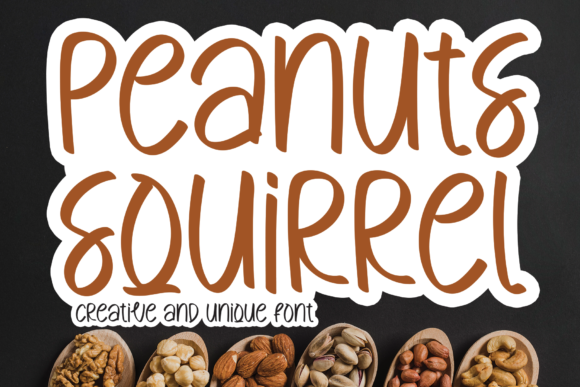
Step into the realm of enchantment, where elegance and charm dance hand in hand to create a typographic masterpiece – Peanuts Squirrel Font. This exquisite script font is meticulously designed to awaken the senses and stir emotions with its graceful curves and captivating presence.
Peanuts Squirrel Font belongs to the esteemed family of script fonts, renowned for their ability to evoke a sense of intimacy and personal touch. It is the embodiment of artistic flair, thoughtfully created to elevate your creative projects to new heights.
Immerse yourself in the beauty of Peanuts Squirrel Font and embark on a journey of artistic exploration. Let your imagination soar as you craft extraordinary wall displays that speak volumes, transforming blank walls into canvases of artistry.
Picture this: your wedding invitations adorned with the enchanting strokes of Peanuts Squirrel Font. Each letter, a delicate dance of beauty, invites your guests into a world of elegance and romance. Your social media posts will come alive with a touch of sophistication, capturing the attention of your audience with their captivating charm.
Envision your logos and advertisements adorned with the finesse of Peanuts Squirrel Font, leaving an unforgettable impression on your customers. They will be drawn to the allure of your products and services, captivated by the font's ability to convey both grace and strength.
Peanuts Squirrel Font is not merely a font; it is a versatile tool that empowers you to create extraordinary designs. Its presence will enhance product packaging, product designs, labels, and photography, adding a touch of refinement that elevates your brand's image.
See your watermarks transformed into pieces of art, showcasing your unique style with a flair of sophistication. Create invitations and stationery that exude elegance, leaving a lasting impression on your recipients.
With Peanuts Squirrel Font, even the simplest of projects are imbued with a sense of artistry. Its delicate strokes lend a touch of magic to posters, flyers, and brochures, making them impossible to ignore.
Peanuts Squirrel Font is more than just a font; it is an experience that awakens the senses and stirs the soul. It is an invitation to embrace creativity and embark on a journey of artistic discovery.